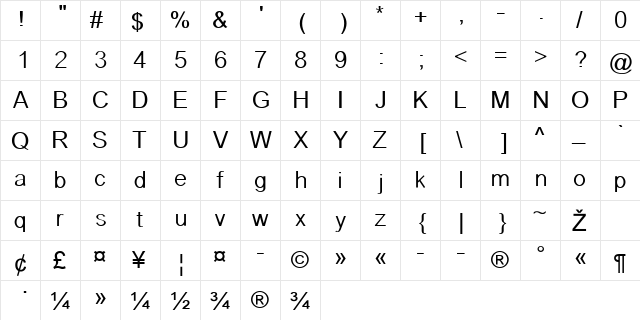
Alice5 Unicode Regular
| Foundry | Lao Script for Windows |
| Designer | Ngakham Southichack |
Design Context for Alice5 Unicode Typeface
Alice5 Unicode brings the precise, column-aligned rhythm of monospaced typography to designs that value technical clarity and systematic order.